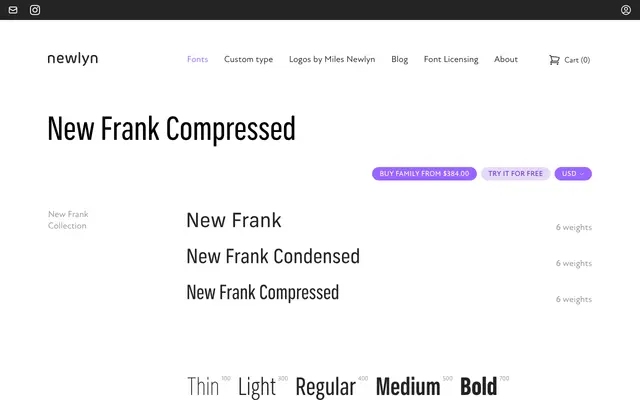
New Frank Compressed
New Frank Compressed specimen from Newlyn
The most tightly drawn width of the New Frank family, a compressed grotesque running across six weights with matching italics.
New Frank Compressed sits at the narrowest extreme of the New Frank collection, which spans standard, condensed and compressed widths. Six weights from Thin to ExtraBold each carry a corresponding italic, giving 12 styles in total. The tight proportions suit poster work, headlines and contexts where horizontal economy is as important as typographic character.
A compressed grotesque sans-serif, part of the New Frank collection that spans standard, condensed and compressed widths across six weights with matching italics.